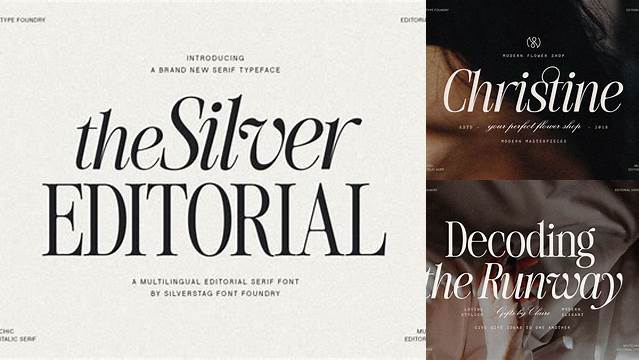
Free Silver Editorial Font Download: Modern Chic Serif
Hey guys! Are you looking for a font that screams elegance, sophistication, and a touch of modern flair? Look no further! In this article, we're diving deep into the world of the Silver Editorial Modern Chic Serif Font, and guess what? You can download it for free! We'll cover everything from its unique characteristics and ideal uses to how you can get your hands on it. So, buckle up and let's explore the captivating world of this stunning font!
1. What is the Silver Editorial Font?
So, what exactly is the Silver Editorial Font? Well, it's a typeface that falls under the serif category, but it's not your average serif. It blends classic elegance with a modern, chic twist. Think of it as the little black dress of fonts – timeless, versatile, and always in style. This font is characterized by its delicate serifs (the little feet at the end of the strokes), its balanced letterforms, and its overall sophisticated feel. It's the kind of font that makes you want to sip a latte in a Parisian café while reading a beautifully designed magazine. Silver Editorial Font isn't just a typeface; it's a statement. It whispers sophistication and shouts readability, making it perfect for a wide array of design projects. Its elegant curves and balanced strokes lend an air of professionalism and finesse, whether it's gracing the pages of a high-end fashion magazine or adding a touch of class to a wedding invitation. The versatility of this font stems from its ability to seamlessly blend tradition with modernity. It's not stuck in the past, nor is it overly futuristic; it strikes the perfect balance, making it suitable for both digital and print applications. Imagine using Silver Editorial Font for the body text of a website – it's clean and legible, ensuring a comfortable reading experience for your visitors. Or picture it adorning the cover of a novel, instantly conveying a sense of literary sophistication. The possibilities are endless! The font’s unique charm lies in its ability to evoke a sense of timeless elegance while remaining refreshingly modern. Its serifs are not overly pronounced, which prevents it from feeling dated or stuffy. Instead, they add a subtle touch of formality that enhances the overall sophistication of the design. The letterforms are carefully crafted, ensuring that each character harmonizes with the others, creating a visually pleasing and cohesive whole. Silver Editorial Font is more than just a pretty face; it's a workhorse that delivers on both aesthetics and functionality. It's designed to be highly readable, even at smaller sizes, making it an excellent choice for body text as well as headlines. This versatility is one of the key reasons why it's a favorite among designers who seek a font that can do it all. Whether you're working on a branding project, designing a website, or creating marketing materials, Silver Editorial Font can help you achieve a polished and professional look.
2. Key Characteristics of the Modern Chic Serif Font
Okay, let's dive deeper into what makes the Modern Chic Serif Font so special. We're talking about those distinctive features that set it apart from the crowd. First up, we have the serifs themselves. They're not overly dramatic or clunky; instead, they're refined and elegant, adding a touch of sophistication without being too distracting. Then there's the letterform itself – it's balanced and harmonious, with a comfortable rhythm that makes reading a breeze. And let's not forget the contrast between the thick and thin strokes, which gives the font a dynamic and engaging feel. These key characteristics aren't just aesthetic choices; they're carefully considered design elements that contribute to the font's overall readability and visual appeal. The Modern Chic Serif Font boasts a unique blend of features that make it a standout choice for designers seeking a typeface that exudes sophistication and modernity. One of the most notable characteristics is its delicate serifs, which are subtly crafted to add a touch of elegance without overwhelming the design. These serifs are not overly pronounced, allowing the font to maintain a clean and contemporary feel. This balance between classic and modern elements is what gives the font its distinct charm. The letterforms of the Modern Chic Serif Font are meticulously designed to ensure readability and visual harmony. Each character is carefully crafted to complement the others, creating a cohesive and pleasing aesthetic. The font's balanced proportions contribute to its overall elegance, making it suitable for a wide range of applications. Whether it's used for headlines, body text, or branding materials, the font maintains its clarity and sophistication. Another key characteristic of this font is the contrast between its thick and thin strokes. This contrast adds a dynamic quality to the typeface, making it visually engaging and memorable. The variation in stroke weight creates a subtle rhythm that enhances the reading experience, preventing the text from appearing monotonous or dull. This attention to detail is what sets the Modern Chic Serif Font apart from more generic serif typefaces. Furthermore, the font's x-height (the height of the lowercase letters) is carefully considered to optimize legibility. A well-proportioned x-height ensures that the text remains readable even at smaller sizes, making the font a versatile choice for both print and digital media. This attention to practicality is a hallmark of good typeface design, and it's evident in every aspect of the Modern Chic Serif Font. The overall impression of the Modern Chic Serif Font is one of refined elegance and contemporary style. It's a typeface that commands attention without being overly flashy, making it perfect for projects that require a touch of sophistication and class.
3. Ideal Uses for the Silver Editorial Font
Now, let's talk about where this font really shines. The Silver Editorial Font is incredibly versatile, but it's particularly well-suited for projects that require a touch of elegance and sophistication. Think editorial design, like magazines and books, where its readability and classic style can truly shine. It's also a fantastic choice for branding, especially for businesses that want to project a high-end or luxurious image. Wedding invitations, stationery, and other formal events are also perfect candidates for this font. But don't let its elegance fool you – it can also work well in more modern and minimalist designs, adding a touch of class without feeling stuffy. The beauty of the Silver Editorial Font lies in its adaptability, allowing it to seamlessly integrate into a variety of creative projects. When it comes to editorial design, the Silver Editorial Font is a natural fit. Its clean lines and balanced letterforms make it incredibly readable, even in long blocks of text. This is crucial for magazines, books, and other publications where readability is paramount. The font's classic serif style adds a touch of sophistication, making it ideal for high-end publications that want to convey a sense of elegance and authority. Imagine a fashion magazine using this font for its body text – it instantly elevates the overall design and creates a sense of luxury. In the realm of branding, the Silver Editorial Font can be a powerful tool for businesses that want to project a refined and sophisticated image. Whether it's a luxury brand, a high-end restaurant, or a boutique hotel, this font can help convey a sense of quality and exclusivity. The font's timeless appeal ensures that the brand's visual identity remains current and relevant, even as trends come and go. Using this font for logos, business cards, and website typography can create a cohesive and professional brand presence. For formal events such as weddings, galas, and corporate events, the Silver Editorial Font is an excellent choice. Its elegant serifs and balanced letterforms make it perfect for invitations, programs, and other printed materials. The font adds a touch of sophistication and formality, setting the tone for the event. Imagine a wedding invitation adorned with this font – it instantly conveys a sense of romance and elegance. Despite its classic appeal, the Silver Editorial Font can also be used in more modern and minimalist designs. Its clean lines and understated elegance make it a versatile choice for projects that require a contemporary feel. The font can be paired with sans-serif typefaces to create a striking contrast, or it can be used on its own for a clean and sophisticated look. This adaptability is what makes the Silver Editorial Font a valuable asset in any designer's toolkit. The font is particularly well-suited for projects that require a touch of elegance and sophistication, but its versatility allows it to shine in a variety of creative contexts.